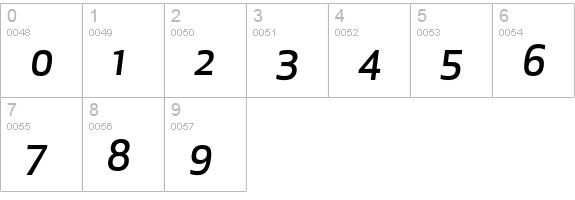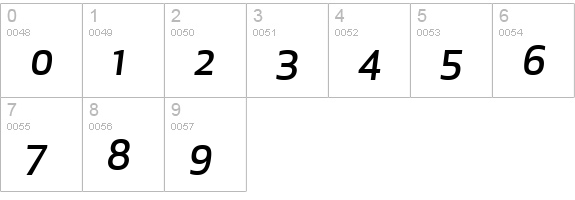
ApexNew-MediumItalic is a modern and stylish font that exudes sophistication and elegance. Its sleek italic style adds a touch of flair to any design project, making it perfect for headings, titles, and other attention-grabbing elements. The clean lines and subtle curves of ApexNew-MediumItalic give it a timeless appeal that will never go out of style. What makes ApexNew-MediumItalic even more appealing is that it is available for free download at FontsMarket.com. This means that you can easily access this high-quality font without any cost, making it an excellent choice for designers, creatives, and anyone looking to add a touch of sophistication to their projects. Don't miss out on the opportunity to enhance your designs with the elegance and versatility of ApexNew-MediumItalic – download it for free today!